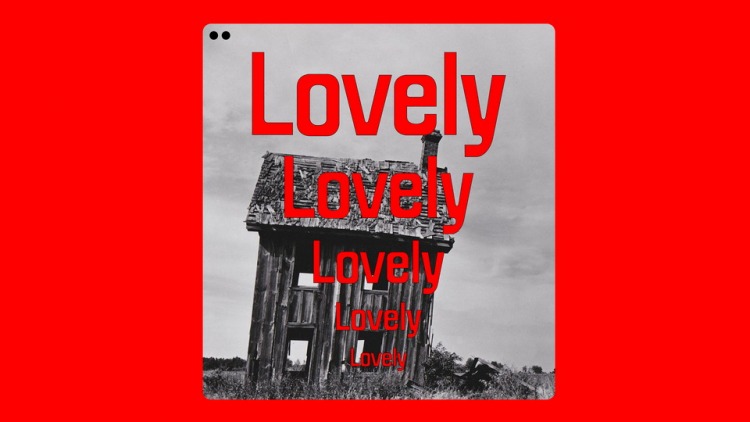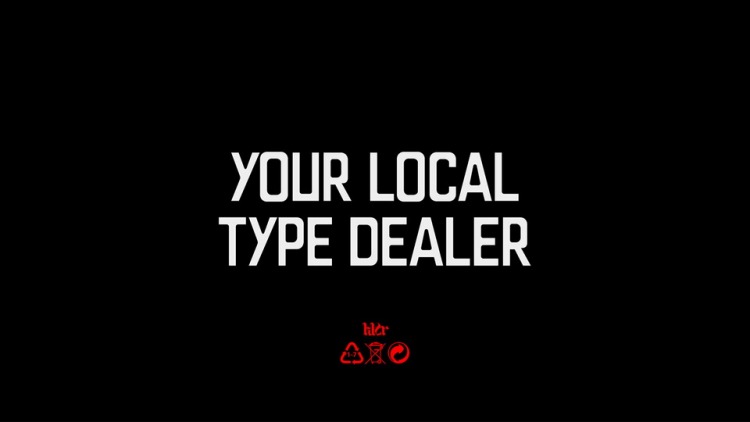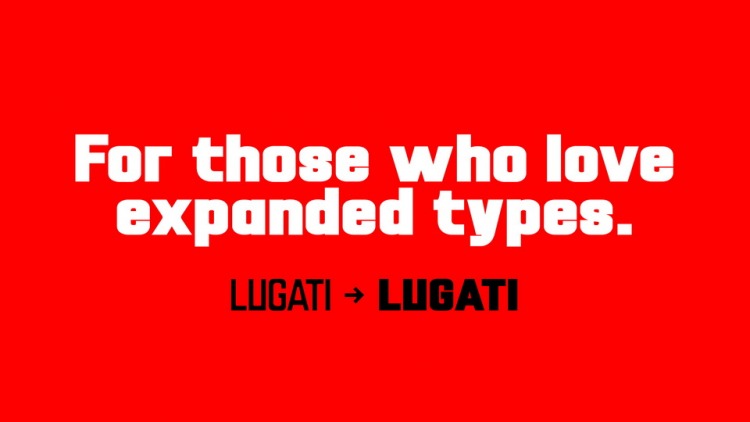
Lugati Font Family
Lugati Sans Serif Font
This is a unique and modern sans serif display typeface perfect for headlines, big text, branding, logotypes & display usage. It is an interesting specimen with some glyphs being more diverse than the others, making it a somewhat contemporary piece.